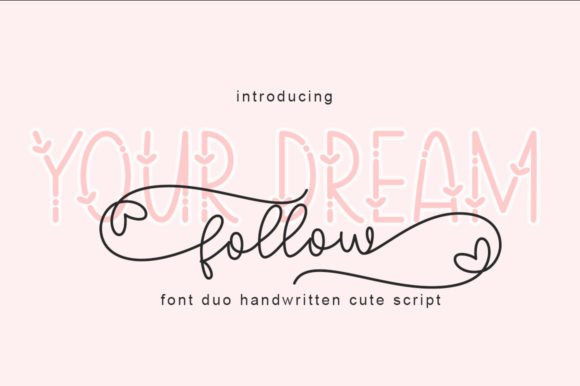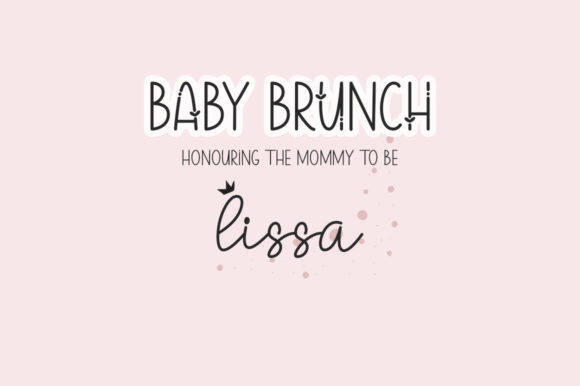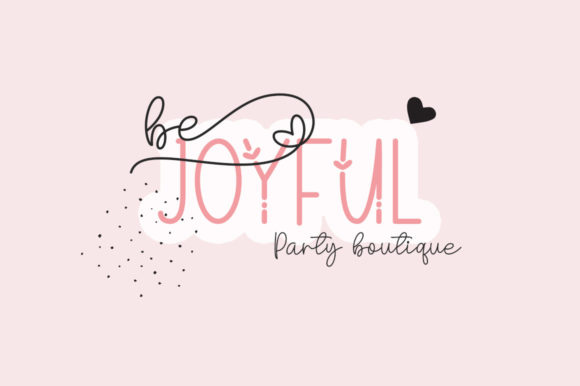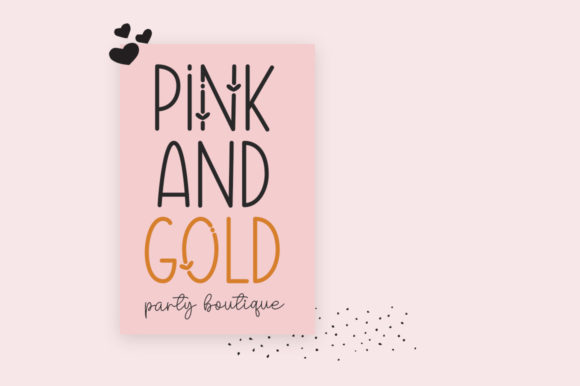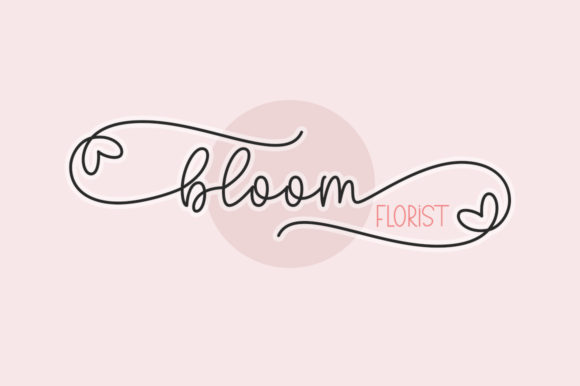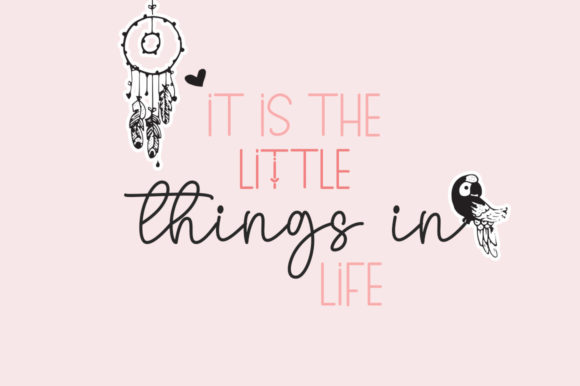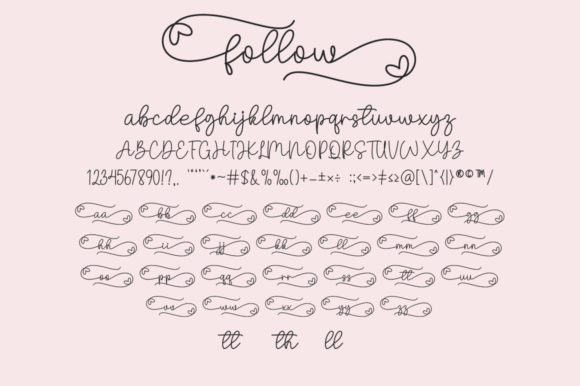
Where Dreams Meet Design
You know that moment when inspiration strikes, and your creativity is flowing like a river? It’s like the whole world has opened up, and anything seems possible. That’s exactly what happened when I stumbled upon the Follow Your Dream Font. This lovely duo font, comprising a display and script, is a perfect blend of elegance and charm.
With its PUA encoding, accessing the font’s extensive glyphs and swashes is a breeze. Whether you’re a seasoned designer or just starting out, this font is a valuable addition to your toolkit. The Follow Your Dream Font is an ideal choice for creating stunning designs that will leave a lasting impression. Its sweet style and versatility make it a must-have for any designer looking to elevate their work.
- Unique Characteristics: “Follow Your Dream Font” features a unique, hand-drawn design with a mix of cursive and script elements, making it perfect for creating a personal and inspirational message.
Follow Your Dream Font Review
Overall, I think “Follow Your Dream Font” is a solid addition to any designer’s toolkit. The font’s versatility and flexibility are definite pluses. ✨ I love how it seamlessly adapts to various project requirements, from elegant headings to clean body text. It’s also easy on the eyes, making it perfect for long reads or presentations.
- Extensive language support, making it ideal for global projects
- Excellent legibility, even at small font sizes
- Highly customizable, with a range of weights and styles to choose from
- Smooth, modern aesthetic that works well in both digital and print contexts
However, I do have a few criticisms:
- Some users may find the font’s rounded edges too soft or lacking in character
- While the font is highly customizable, the default settings can feel a bit generic or unremarkable
Overall, I think “Follow Your Dream Font” is a great choice for designers who want a reliable, all-purpose font that can handle a wide range of projects. While it may not be the most exciting or innovative font on the market, it gets the job done with style and panache. ⚠️ Just be sure to customize it to your taste, and don’t be afraid to push the boundaries of what this font can do!
Follow Your Dream Font is ideal for use in inspirational and motivational designs, such as quotes, posters, and social media graphics. It’s also great for use in headings and titles to add a touch of elegance and sophistication.
To get the most out of Follow Your Dream Font, use it in combination with other creative fonts and design elements to create a visually appealing and engaging design.